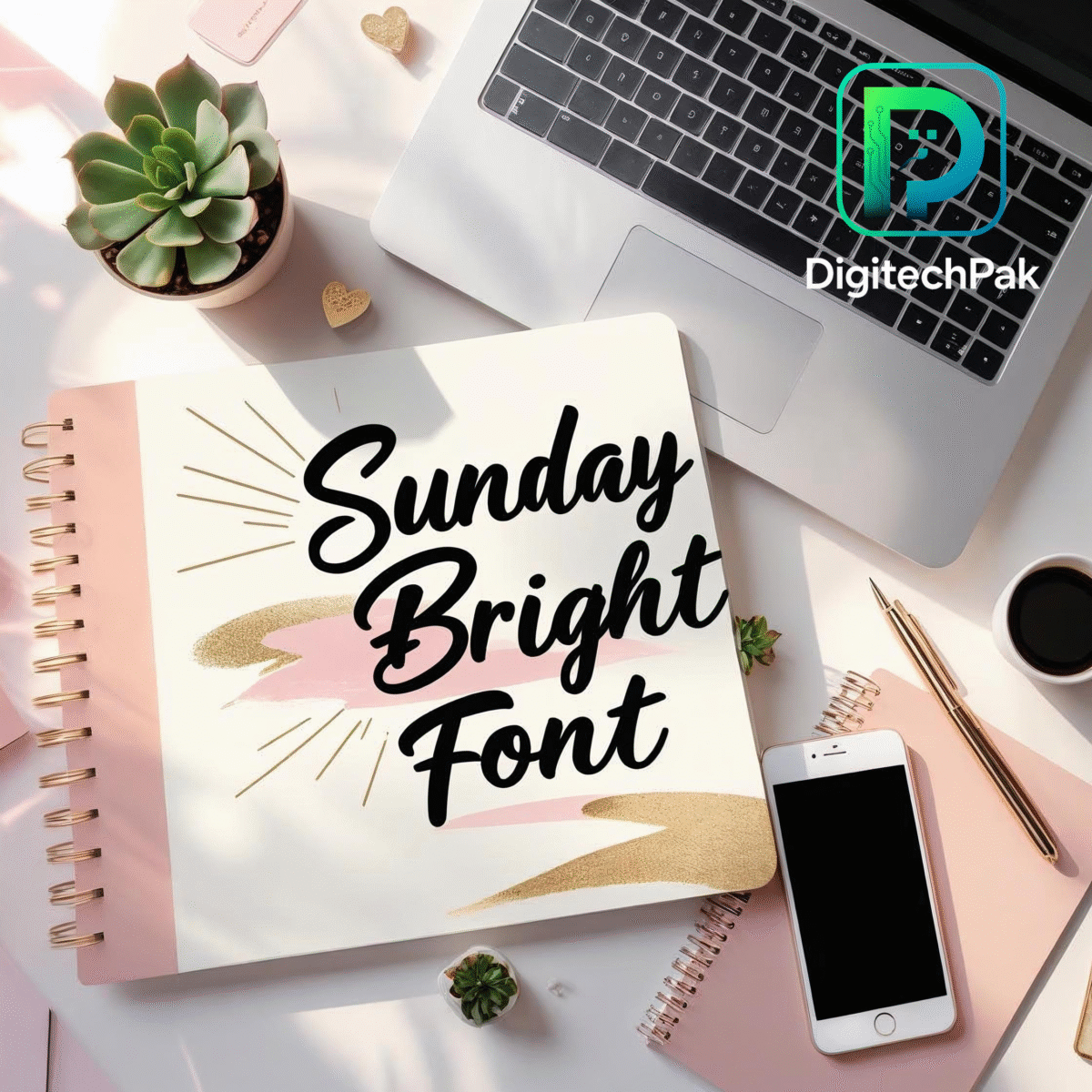
✨ Introducing Sunday Bright Font
Looking for a font that adds charm and elegance to your projects? Sunday Bright Font is a beautifully designed script typeface crafted by DigiTechPak, perfect for digital creators, bloggers, and small business owners.
This font blends style and readability, making it ideal for logos, websites, social media posts, invitations, and branding. With its easy-to-edit format, you can customize it without any design skills.
💡 Why Choose Sunday Bright Font?
• Editable & Versatile – Easy to customize in any project
• High-Quality Design – Professional look without the hassle
Bring your brand to life with a typeface that radiates elegance and creativity.